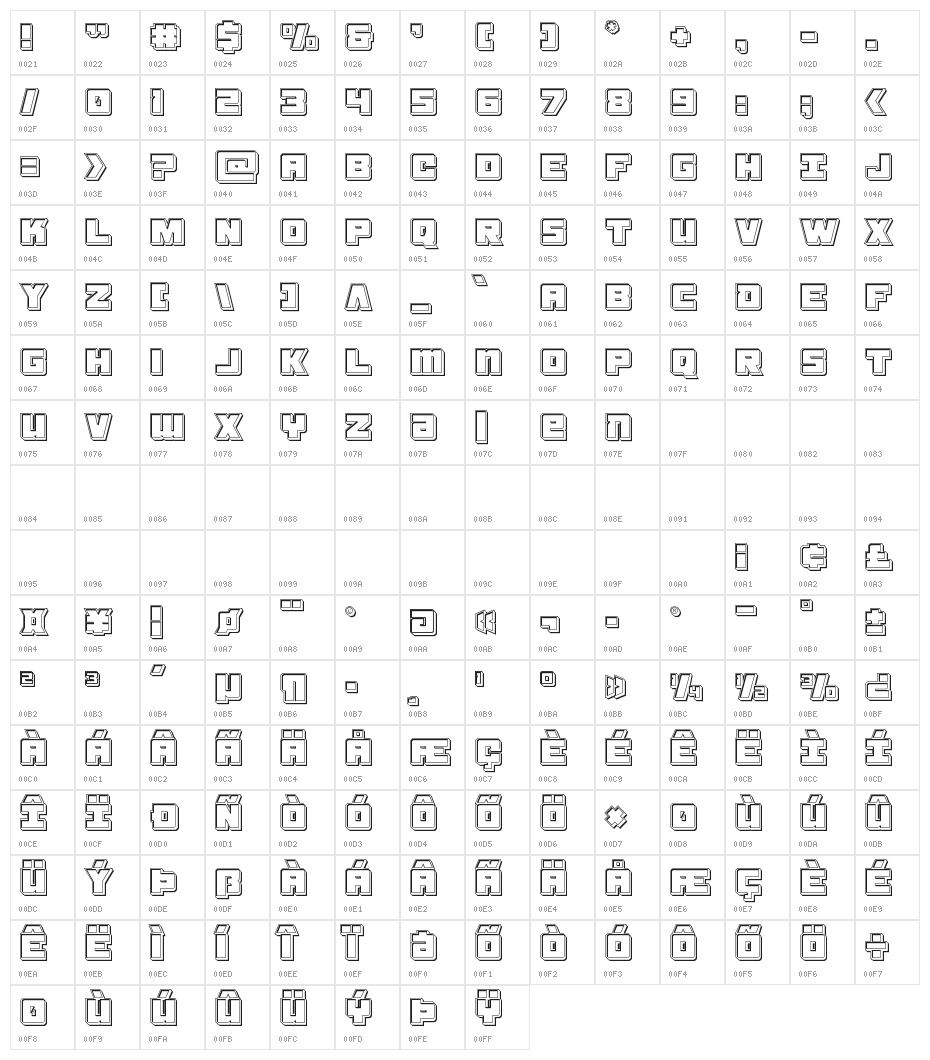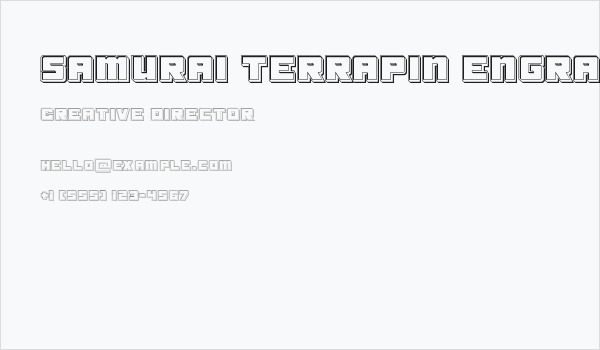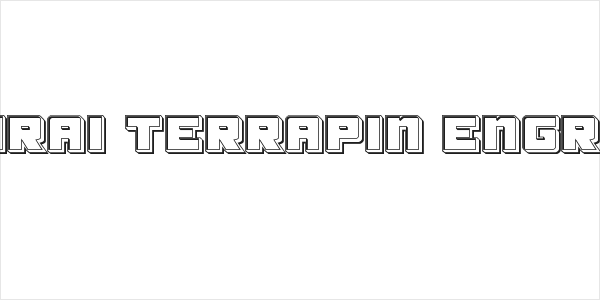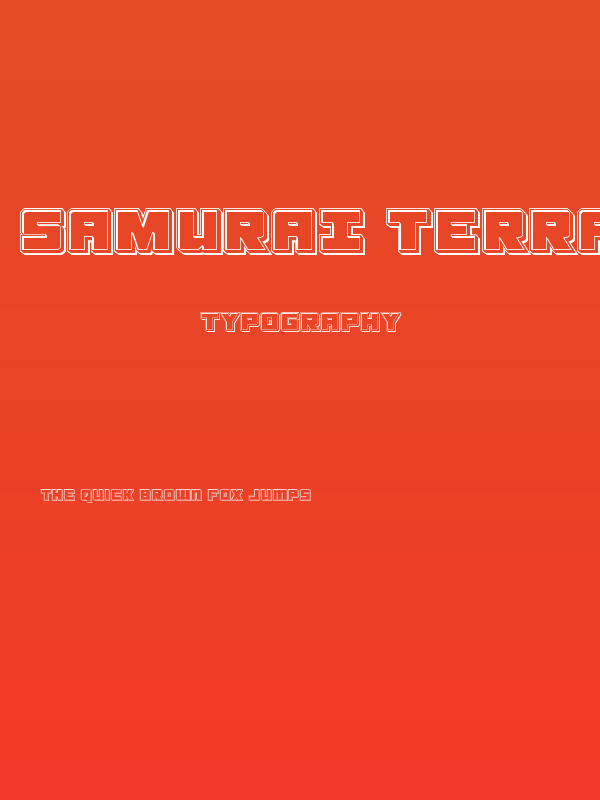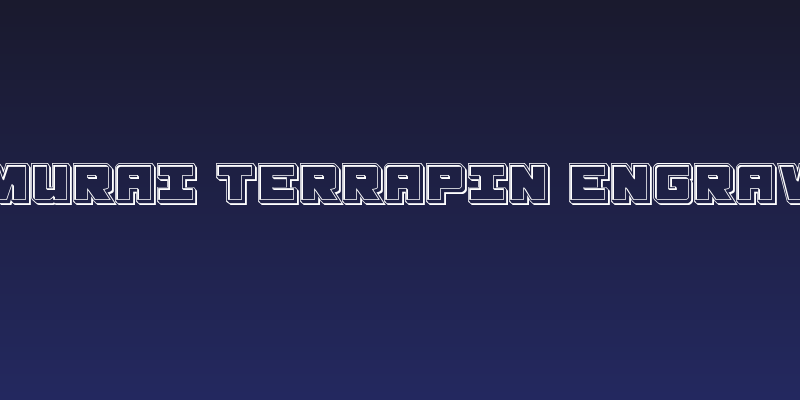
Samurai Terrapin Engraved Font
Samurai Terrapin Engraved Description
This font features a bold, three-dimensional engraved style with a strong, geometric structure. Each character is outlined with a thick border, creating a sense of depth and solidity. The design is reminiscent of architectural engravings, with sharp angles and a blocky appearance. The uppercase and lowercase letters maintain a consistent style, while the numerals and special characters are crafted to match the bold aesthetic. The font's unique engraved effect gives it a striking and memorable appearance, suitable for projects that require a strong visual impact.
| Proposed Projects | Ideal for posters, logos, video game graphics, and any design requiring a bold, impactful typeface. |